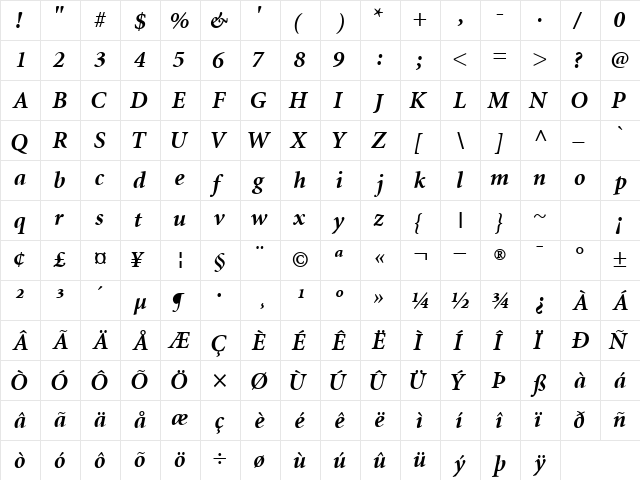
AtlantixBlackSSK Italic
Design Context for AtlantixBlackSSK Typeface
AtlantixBlackSSK takes a measured approach to typography — its balanced proportions and neutral character make it a reliable workhorse for both digital and print work. The dynamic lean of this cut emphasises speed and emphasis in any layout.
Pro Tip: Try AtlantixBlackSSK for annotation and caption copy alongside an upright companion — the contrast in angle creates a dynamic but ordered typographic system.